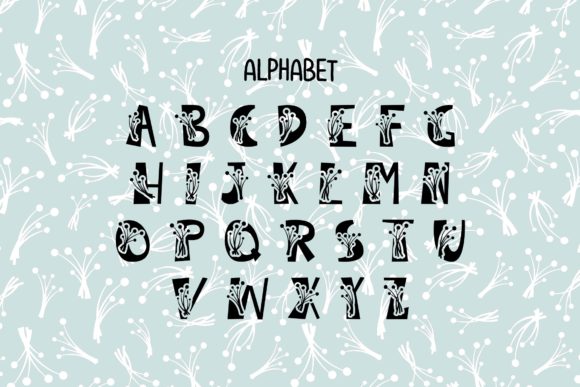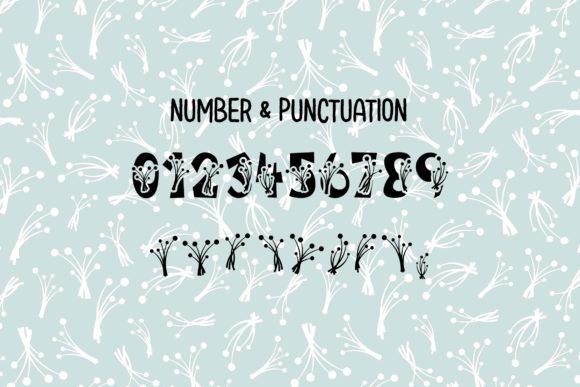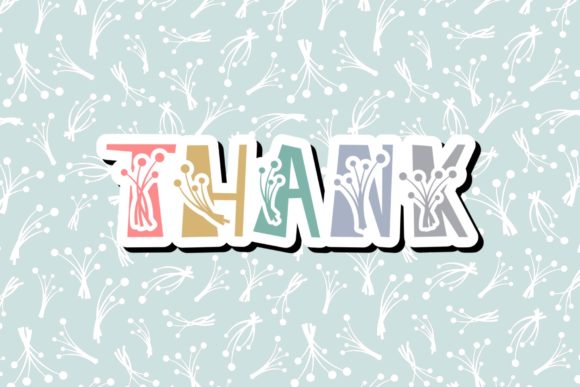
The Sweet Spot: Discovering the Charm of Pollen Font
I’ll never forget the time I was working on a branding project for a local bakery, and I just couldn’t find the right font to capture their warm and inviting personality. The client wanted something that felt handmade, yet sophisticated. After hours of scrolling through font libraries, I stumbled upon Pollen – a lovely decorative font that instantly resonated with the bakery’s vibe. It was love at first sight! 💕
An Honest Review: What I Love (and What to Watch Out For)
Pollen is indeed a gem, and here’s what makes it shine:
• ✨ Unique, hand-crafted feel that’s perfect for branding and logos
• ✅ Extensive character set, including stylistic alternates and glyphs
• ✅ Works beautifully for social media graphics, crafty DIY projects, and more
• ✨ Highly legible, even at smaller font sizes
Of course, no font is perfect, and Pollen has a few quirks:
• ⚠️ Some users might find the font a tad too ornate for very formal or corporate designs
• 🤔 Limited suitability for body text, due to its decorative nature
The Story Behind Pollen
Pollen was designed by a talented type designer who wanted to create a font that captured the essence of handmade crafts. Inspired by the intricate details of nature, the designer carefully crafted each glyph to evoke a sense of whimsy and wonder. The result is a font that’s both elegant and approachable – perfect for a wide range of creative projects.
What type of projects is Pollen best suited for? Pollen is perfect for logos, branding, social media graphics, crafty DIY projects, and more!
Is Pollen suitable for body text? While Pollen is highly legible, its decorative nature makes it better suited for headings and titles rather than body text.
Does Pollen support OpenType features? Yes! Pollen includes a range of OpenType features, including stylistic alternates and glyphs.